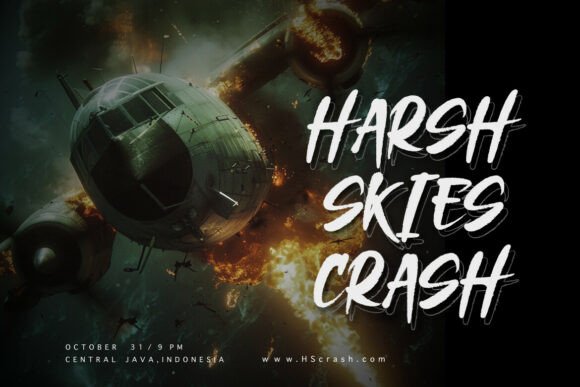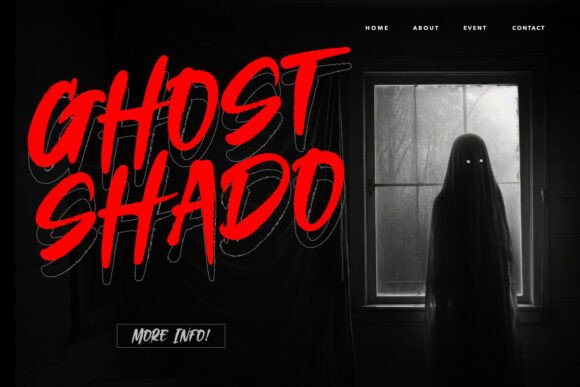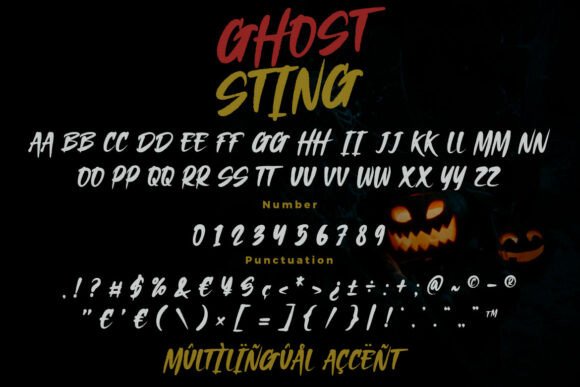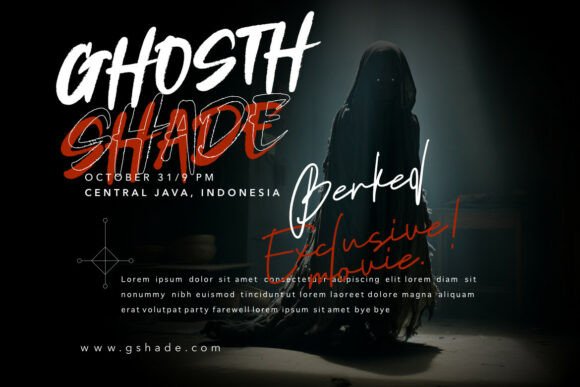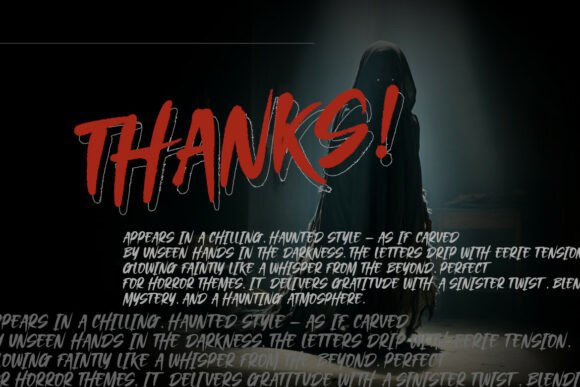
Unleash the Horror: Introducing Ghost Sting Font
In the world of typography, few fonts evoke the same level of fear and unease as the Ghost Sting Font. This brush display font is a masterclass in creating a sense of tension and foreboding, making it perfect for designers and crafters looking to add a touch of horror to their work. With its aggressive strokes, jagged edges, and chaotic flow, Ghost Sting is the ultimate typeface for capturing the raw terror of horror atmospheres and monstrous storytelling.
The Inspiration Behind Ghost Sting
Ghost Sting Font draws inspiration from the darkest corners of our imagination. Creepy forests, glowing-eyed monsters, and shadowy nightmare creatures all come together to create a font that embodies the essence of horror survival and visceral storytelling. The font’s design is a deliberate attempt to evoke the frantic feel of scratched walls, creature marks, and chaotic survival scenes, making it perfect for designs that demand shock, tension, and unforgettable impact.
Design Features of Ghost Sting Font
Ghost Sting Font is a rough, hand-painted typeface that boasts a range of design features that set it apart from other fonts. Some of its key features include:
- Aggressive Strokes: Ghost Sting’s strokes are bold and aggressive, with a sense of raw energy that jumps off the page.
- Jagged Edges: The font’s jagged edges add to its sense of unease and tension, creating a feeling of discomfort in the viewer.
- Chaotic Flow: Ghost Sting’s letters seem to flow together in a chaotic, unpredictable manner, adding to the font’s sense of unease and fear.
- Rough, Hand-Painted Textures: The font’s rough, hand-painted textures give it a gritty, organic feel that is perfect for horror and suspense designs.
Using Ghost Sting Font in Your Designs
Ghost Sting Font is perfect for a range of design applications, from eerie posters to spine-chilling teasers. Here are a few ways you can use Ghost Sting to add a touch of horror to your work:
- Horror Posters: Use Ghost Sting to create eye-catching posters that grab the viewer’s attention and refuse to let go.
- Movie Teasers: Add a touch of suspense and fear to your movie teasers with Ghost Sting’s bold, aggressive strokes.
- Book Covers: Use Ghost Sting to create book covers that are sure to stand out on the shelves and grab the attention of horror fans.
- Video Game Design: Ghost Sting is perfect for video game designers looking to create a sense of tension and fear in their game’s UI and marketing materials.
Tips for Getting the Most Out of Ghost Sting Font
To get the most out of Ghost Sting Font, here are a few tips to keep in mind:
- Use it Sparingly: Ghost Sting is a bold, attention-grabbing font that can quickly become overwhelming if overused. Use it sparingly to create maximum impact.
- Experiment with Colors: Ghost Sting looks great in a range of colors, from bold and bright to dark and muted. Experiment with different colors to find the perfect look for your design.
- Combine with Other Fonts: Ghost Sting can be paired with a range of other fonts to create a unique and eye-catching look. Experiment with different font combinations to find the perfect match.
Ghost Sting Font is a powerful tool for designers and crafters looking to add a touch of horror to their work. With its aggressive strokes, jagged edges, and chaotic flow, this font is perfect for creating designs that demand shock, tension, and unforgettable impact. Whether you’re creating eerie posters, spine-chilling teasers, or horror-themed book covers, Ghost Sting is the ultimate typeface for capturing the raw terror of horror atmospheres and monstrous storytelling.